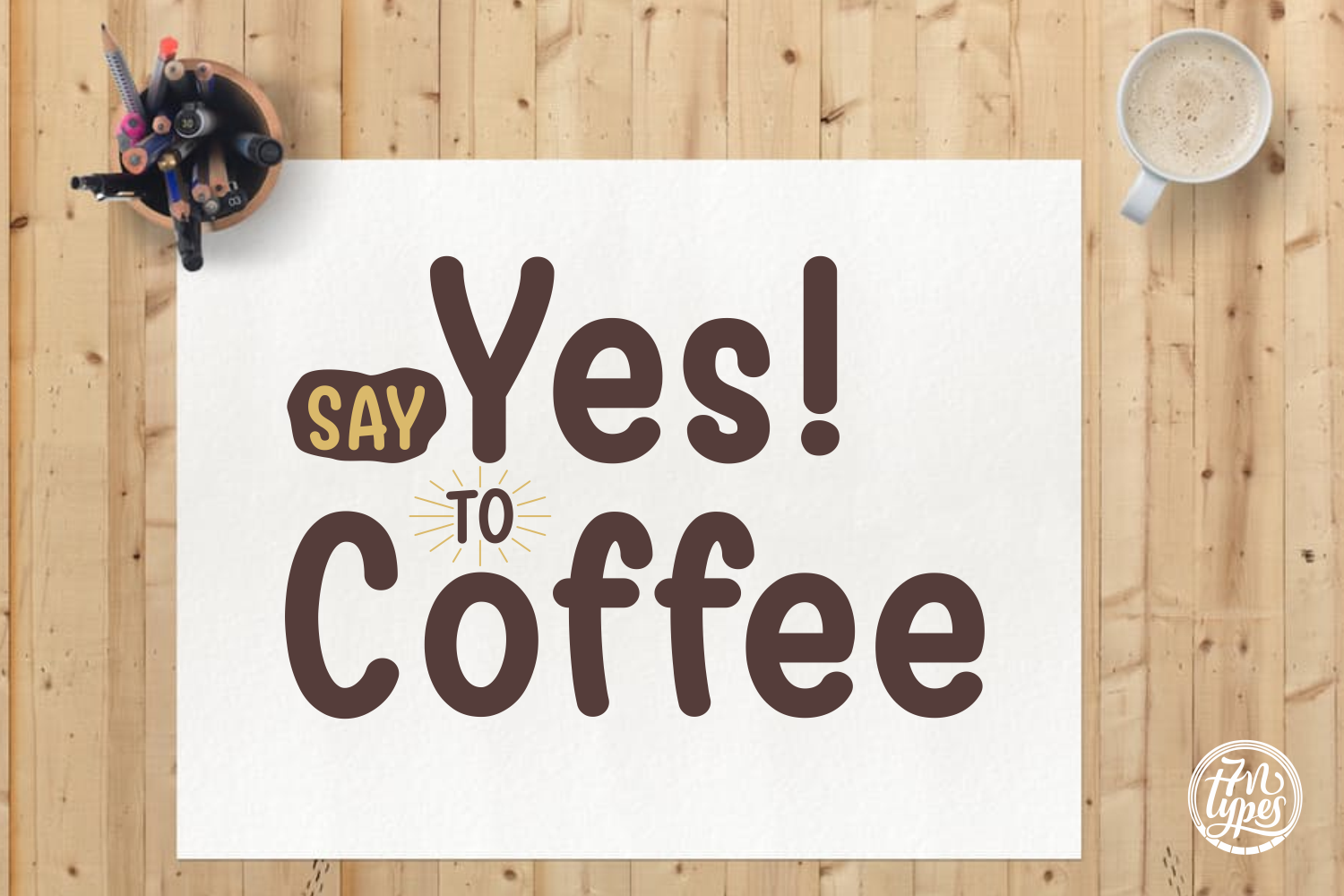
Warung Kopi Font
About Warung Kopi Font
Warung Kopi is a neat but playful handwritten font family that consists out of:
Warung Kopi Regular
Warung Kopi Regular Italic
Warung Kopi Light
Warung Kopi Light Italic
Warung Kopi Bold
Warung Kopi Bold Italic
The Warung Kopi is easy to read and can be used for design that requires a personal touch, such as text on birthday cards, inside children books or when you want to convey a fun, light message. It’s playful enough to be used in personal projects but it’s expressive and personal enough that it’s perfect for branding and messaging.